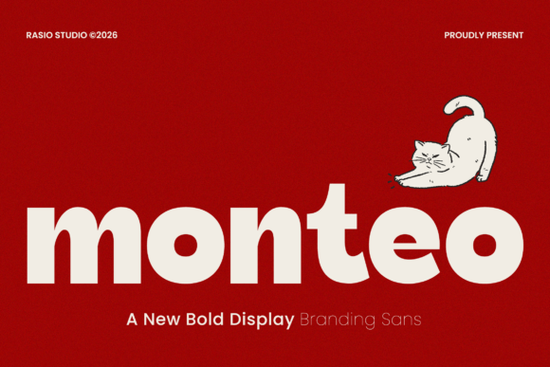
If you're on the lookout for a font that can add a bold and playful touch to your designs, Monteo Font might just be what you need. This sans serif style is not just chunky and confident; it also features playful curves and rounded edges, making it perfect for impactful branding and modern visual communication.
Understanding Monteo Font: A Blend of Boldness and Playfulness
Monteo Font is designed with strong geometric proportions, which gives it a clean yet energetic appearance. Whether you're working on eye-catching headlines, café branding, or retro-inspired posters, this font can help you create a unique and engaging look. Its versatility makes it suitable for a wide range of projects, from food packaging to social media graphics.
What Makes Monteo Font Stand Out?
One of the key features of Monteo Font is its bold construction, which ensures smooth readability across both print and digital projects. The font package includes uppercase and lowercase characters, numerals, and punctuation, providing everything you need to create a cohesive and professional design.
Perfect for Branding and Visual Communication
Branding is all about making a strong and memorable impression, and Monteo Font does just that. Its chunky and confident style can help your brand stand out, whether you're designing a logo, a business card, or a website. The playful curves and rounded edges add a touch of personality, making it ideal for businesses that want to convey a friendly and approachable image.
Use Cases for Monteo Font
- Café Branding: Create a welcoming and inviting atmosphere with menus, signage, and promotional materials that use Monteo Font.
- Food Packaging: Add a bold and playful touch to your product labels, making them more appealing and memorable.
- Retro-Inspired Posters: Design posters that capture the nostalgic feel of the past while still looking modern and fresh.
- Merchandise: Use Monteo Font on t-shirts, mugs, and other merchandise to create a unique and eye-catching design.
- Social Media Graphics: Make your social media posts stand out with eye-catching headlines and text that grab attention.
Comparing Monteo Font with Other Sans Serif Fonts
How to Use Monteo Font in Your Designs
Incorporating Monteo Font into your designs is straightforward. Here are a few tips to get you started:
- Choose the Right Size: Start by selecting the right size for your text. Monteo Font works well in larger sizes for headlines and smaller sizes for body text, depending on the project.
- Combine with Other Fonts: Pair Monteo Font with a complementary font to create a balanced and harmonious design. For example, a clean and simple sans serif like Arial can work well for body text.
- Play with Colors: Experiment with different color combinations to make your text stand out. Monteo Font looks great in bold, vibrant colors as well as more subtle, neutral tones.
- Test Readability: Always test the readability of your text, especially if you're using it for longer passages. Monteo Font is designed to be highly readable, but it's always good to double-check.
Where to Find Monteo Font and Other Creative Resources
You can find Monteo Font and a wide range of other creative resources at Creative Fabrica. This platform offers a variety of fonts, graphics, and templates that can help you bring your creative projects to life. Whether you're a designer, crafter, or small business owner, Creative Fabrica has something to offer.
Final Thoughts
Monteo Font is a versatile and dynamic choice for anyone looking to add a bold and playful touch to their designs. With its strong geometric proportions and smooth readability, it's perfect for a wide range of projects, from branding to social media graphics. Give it a try and see how it can transform your next creative endeavor.